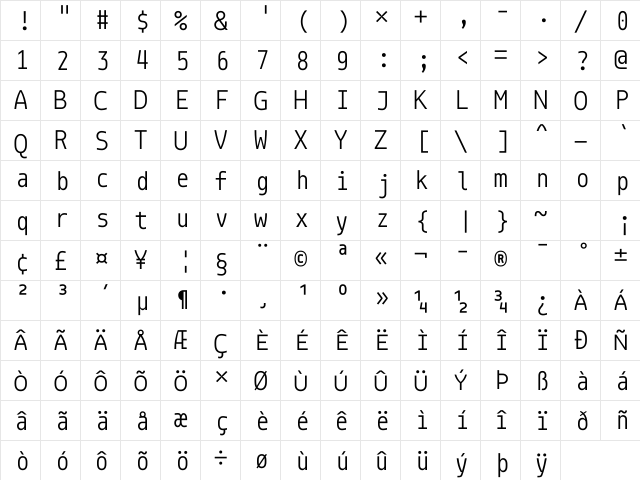
Monoid Normal
Design Context for Monoid Typeface
Monoid brings the precise, column-aligned rhythm of monospaced typography to designs that value technical clarity and systematic order.
Pro Tip: Pair Monoid with a proportional sans for UI contexts where code-style labels and regular body copy need to coexist.